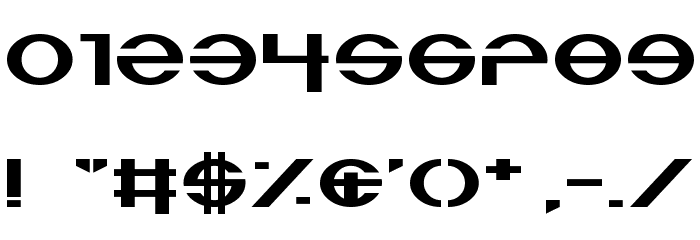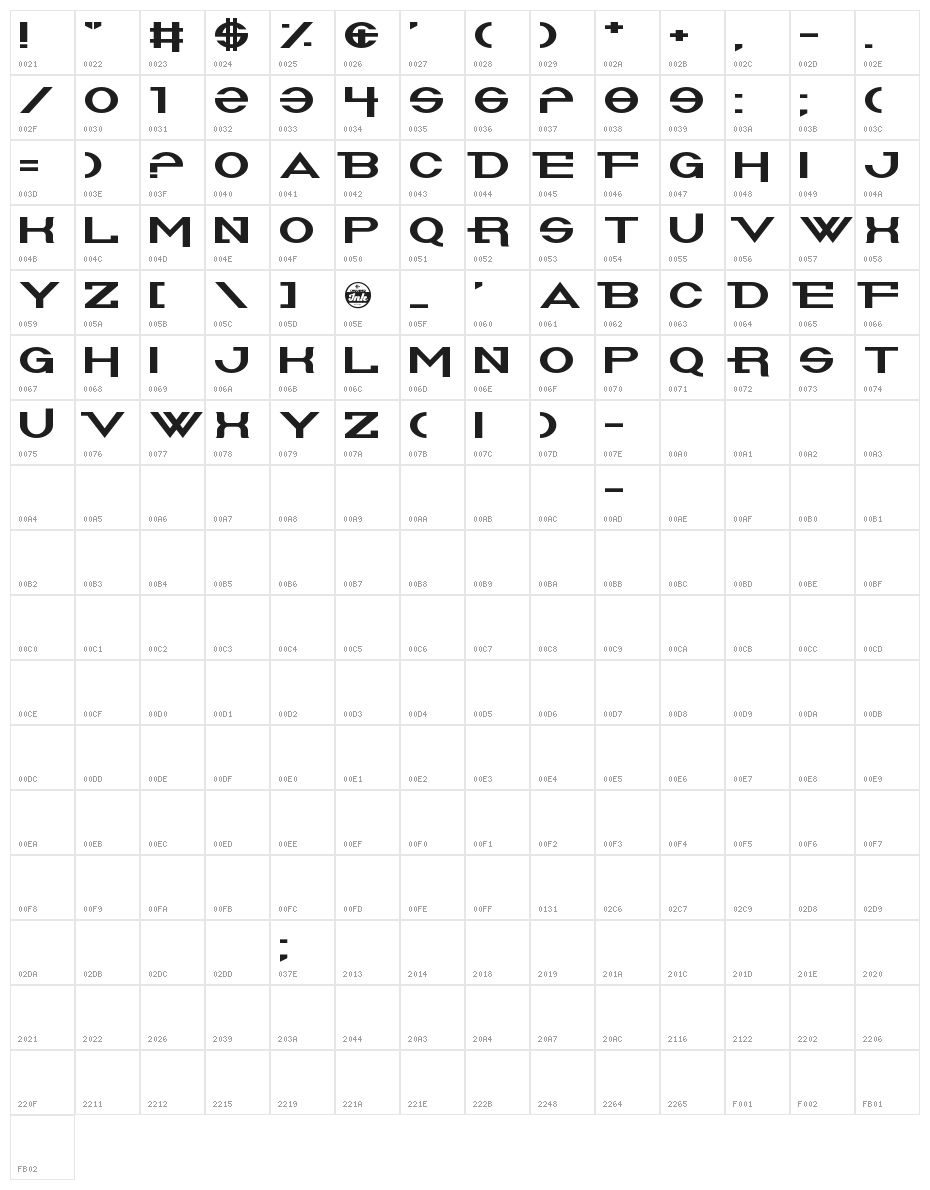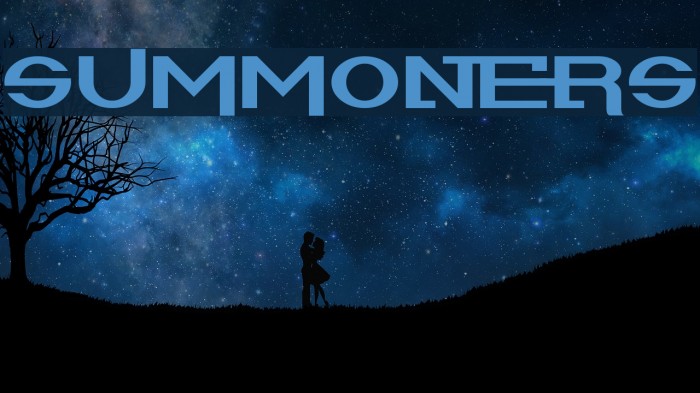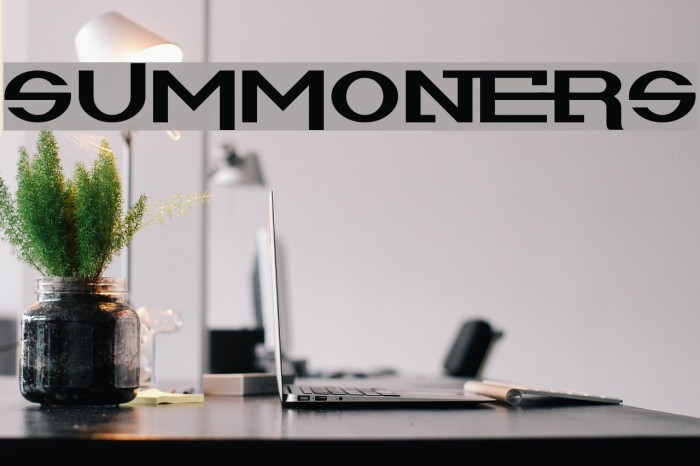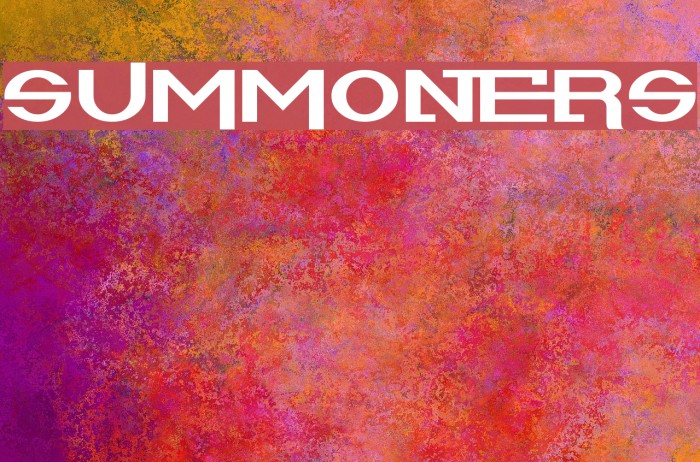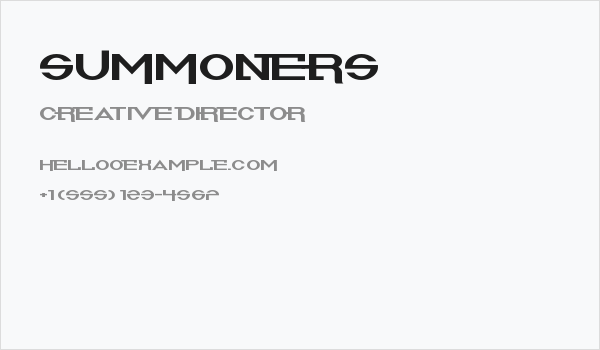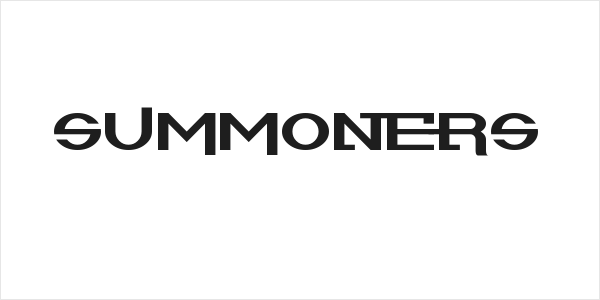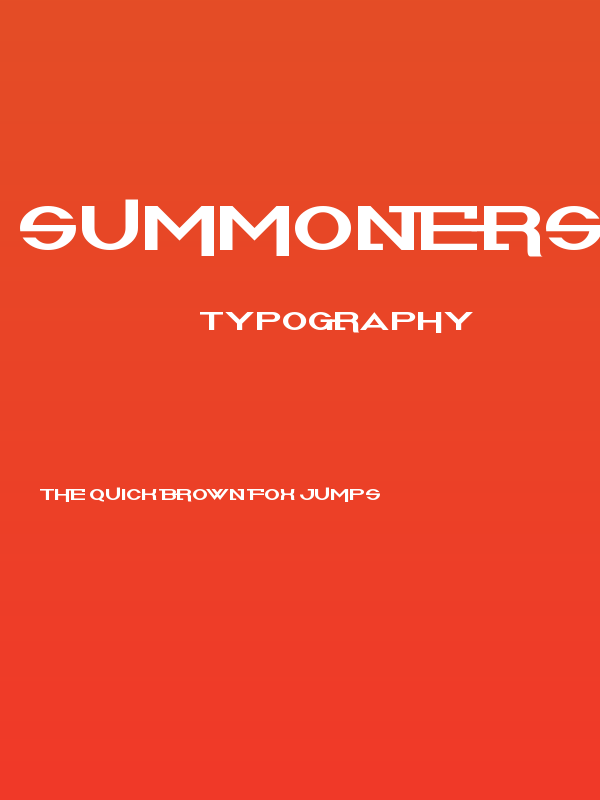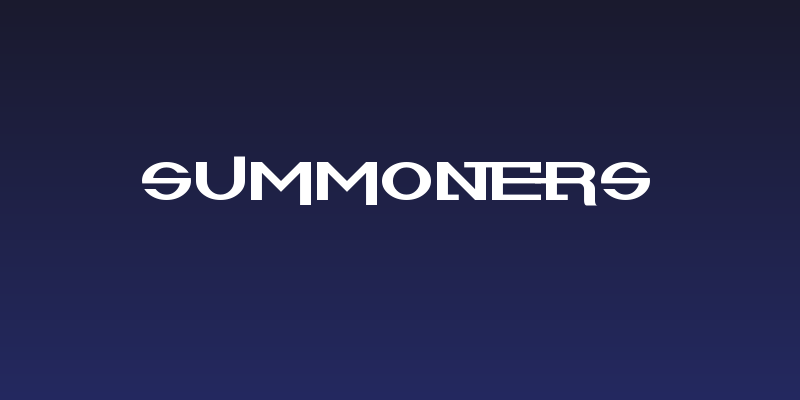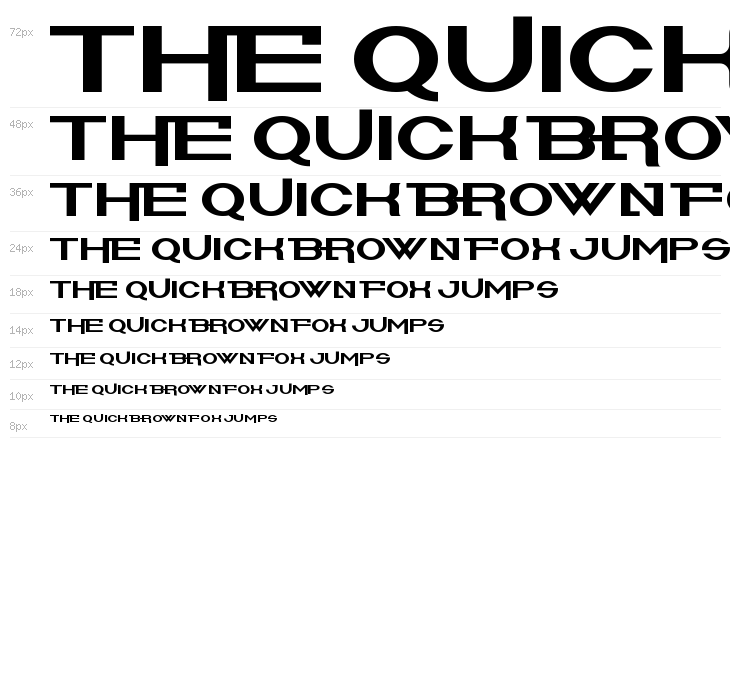
Summoners Font
Summoners Description
This font features a bold, geometric design with a futuristic flair. The characters are constructed with a combination of straight lines and circular elements, creating a unique and modern appearance. The uppercase and lowercase letters maintain a consistent style, with some characters featuring distinctive cuts and overlaps that add to the font's dynamic look. The numerals and special characters follow the same design principles, ensuring a cohesive visual identity across all glyphs. This font's striking appearance makes it ideal for projects that require a strong and contemporary aesthetic.
| Proposed Projects | Ideal for branding, posters, album covers, and digital media that require a modern and eye-catching typeface. |